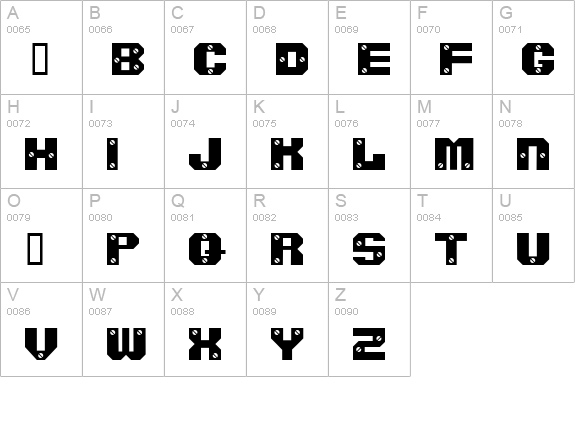
ScrewedSW Font Details
Introducing ScrewedSW font, a unique and edgy typeface that is sure to make a bold statement in your designs. With its sharp and angular letterforms, ScrewedSW exudes a sense of raw energy and rebelliousness. This font is perfect for projects that require a strong and unconventional aesthetic, such as album covers, posters, and branding materials. But what sets ScrewedSW font apart from the rest is that it is not only visually captivating, but also freely available to download. That's right, you can unleash the power of this striking font without breaking the bank. Simply head over to FontsMarket.com, and with just a few clicks, you can start incorporating ScrewedSW into your creative projects. Whether you're a graphic designer looking to add some attitude to your designs or a content creator seeking a font that demands attention, ScrewedSW font is the perfect choice. Its versatility allows it to be used for a range of purposes, from logo designs to website headings, ensuring that your message will be communicated with impact. Don't miss out on this opportunity to enhance your designs with the captivating ScrewedSW font. Download it today, and let your creativity run wild with this free and powerful typeface.